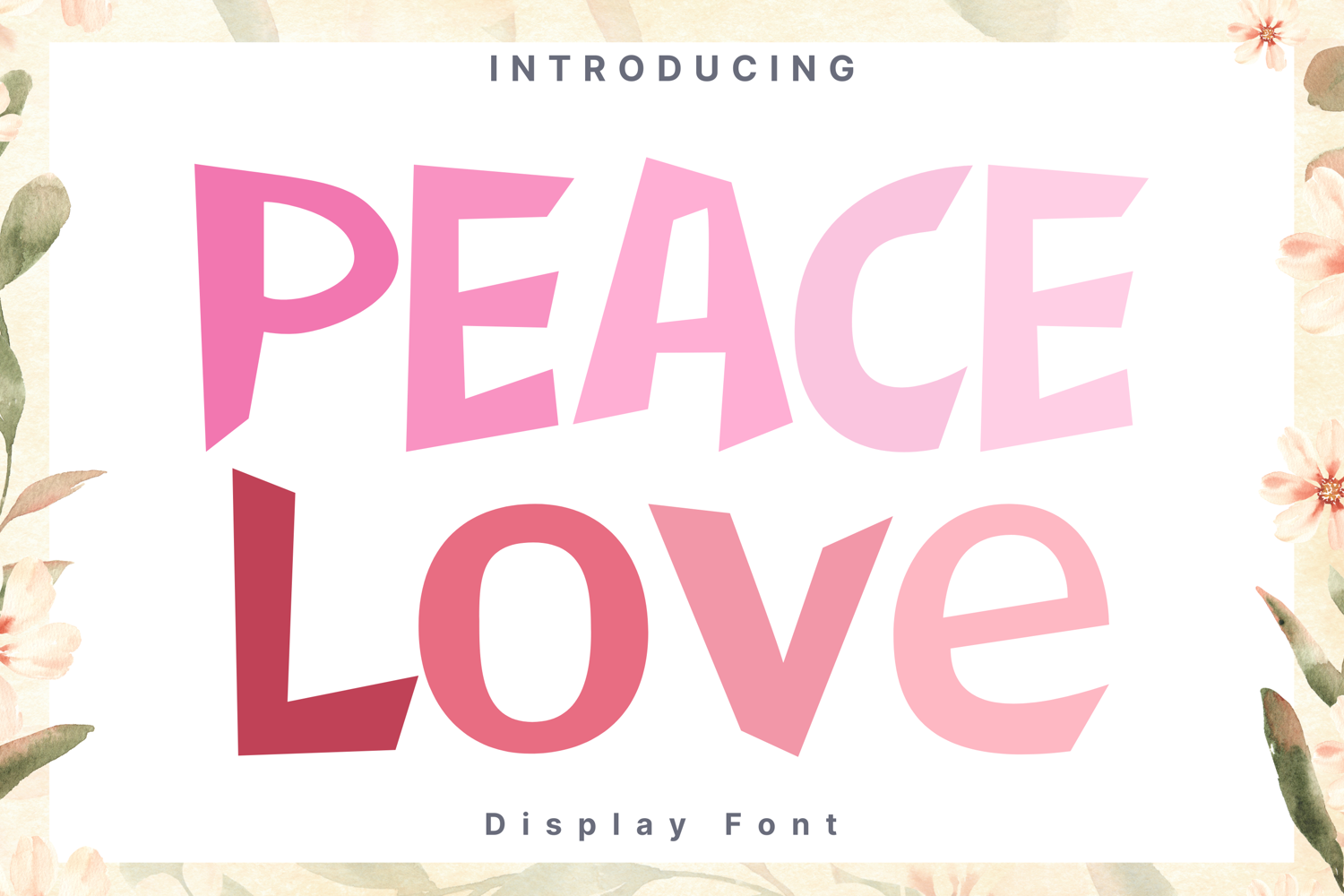
Playful Groove Style
PlayfulGroove
Playful Groove is a bold and energetic display font with an asymmetrical, hand-cut style that creates a dynamic and rhythmic flow. Its irregular angles and quirky shapes give it a lively personality, making it perfect for posters, music events, playful branding, youth-oriented products, and creative headlines. The font captures a sense of fun and movement while remaining bold and easy to read.